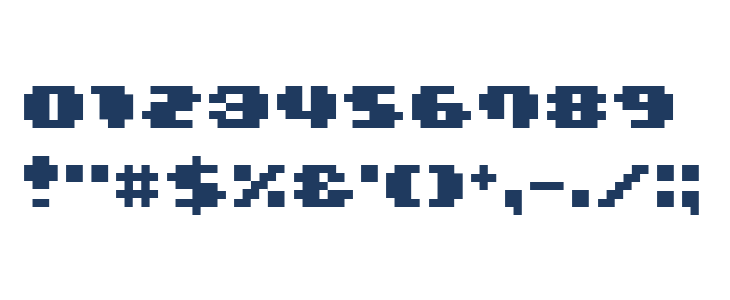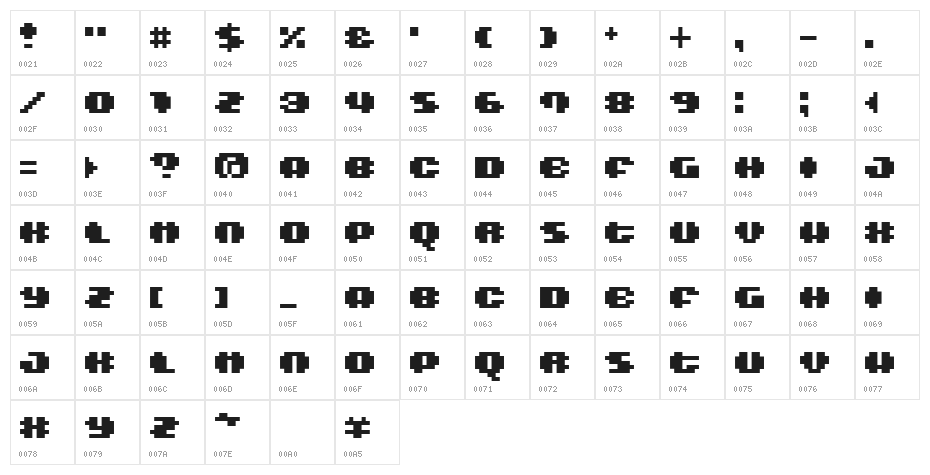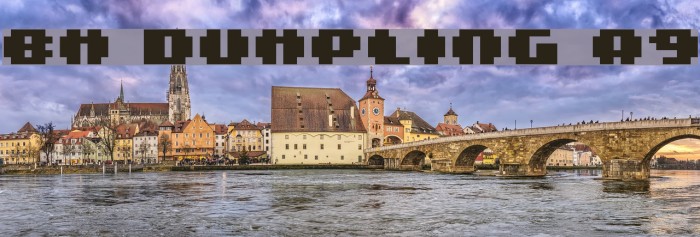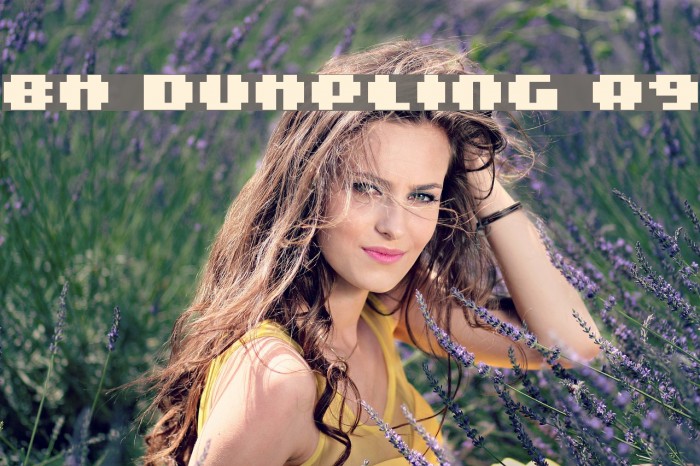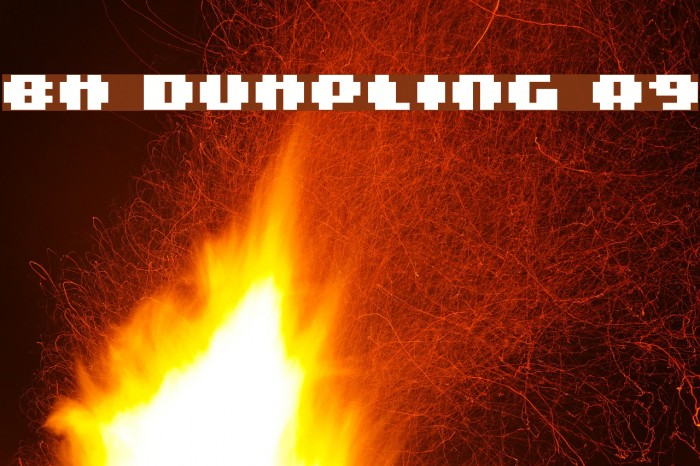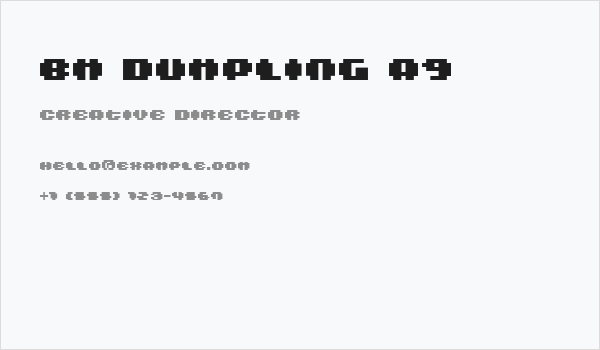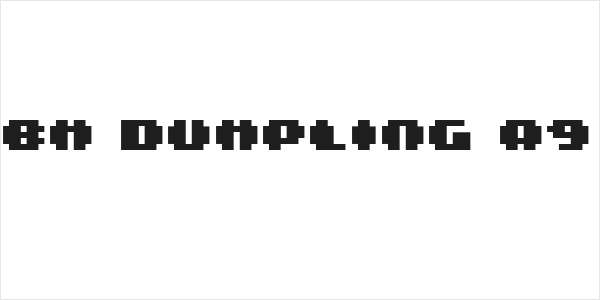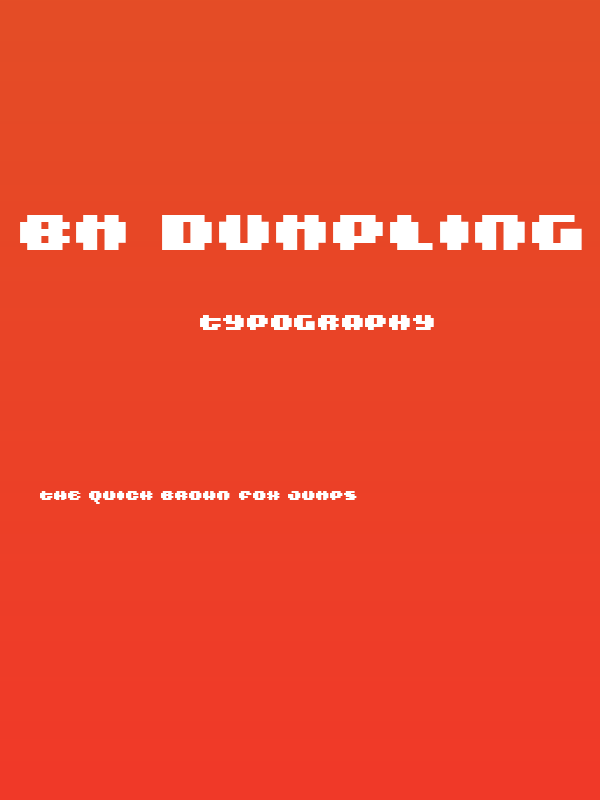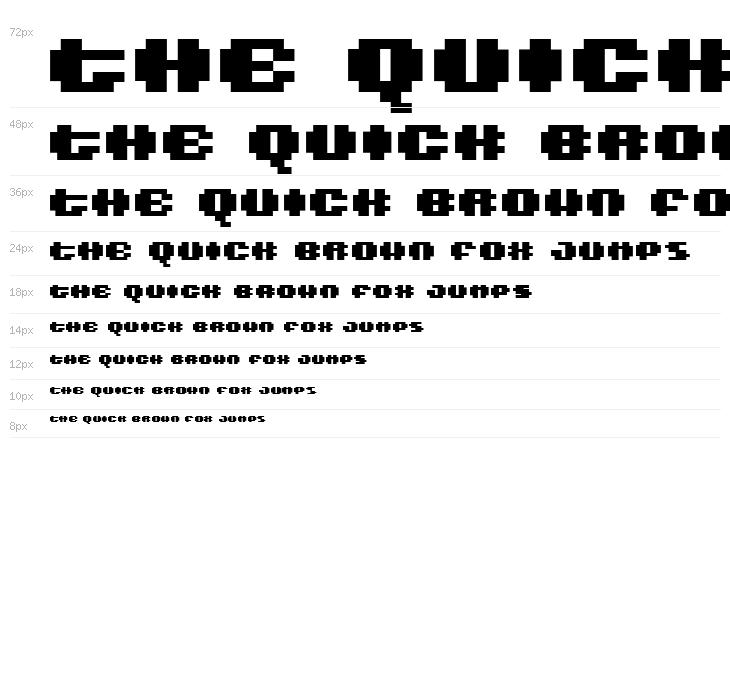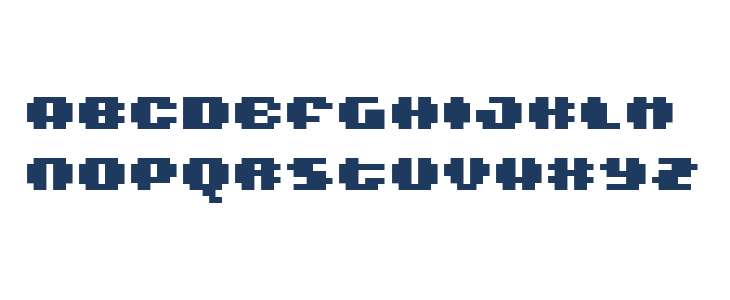
BM dumpling A9 Font
BM dumpling A9 Description
This font features a bold, pixelated style reminiscent of early digital and video game aesthetics. Each character is constructed with a blocky, square design, giving it a distinctly retro and digital appearance. The uniformity in height and width across characters creates a cohesive and structured look. The font's geometric nature makes it highly legible, even at smaller sizes, while its boldness ensures it stands out. The characters are evenly spaced, maintaining a consistent rhythm throughout. This style is ideal for projects that aim to evoke nostalgia or a tech-inspired theme.
| Overall Style | Retro, Digital |
| Use Case | Headlines, Logos, Digital Art |
| Proposed Projects | Ideal for video game graphics, retro-themed designs, digital art projects, and tech-related branding. |